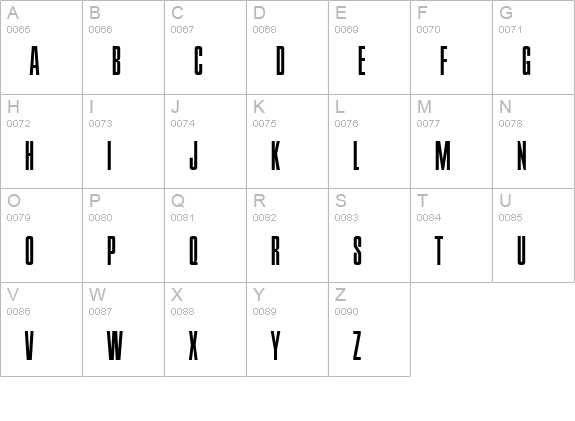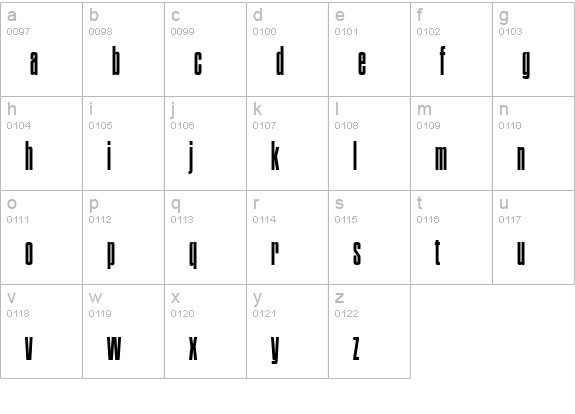
Corporate Regular Font Details
Corporate Regular is the standard, neutral variant in the Corporate typeface family \xE2\x80\x94 well suited to general body text, paragraphs, and standard typographic work.
Introducing Corporate Regular font, a versatile and professional typeface perfect for corporate communication and branding. This font features clean lines and a modern aesthetic, making it ideal for a wide range of design projects. Whether you're creating business documents, marketing materials, or website content, Corporate Regular font will help you achieve a sleek and polished look. And the best part? Corporate Regular font is available for free download at FontsMarket.com. This means you can easily access this high-quality font without any cost, making it a valuable addition to your font library. Don't miss out on the opportunity to enhance your designs with the sleek and professional style of Corporate Regular font. Download it today and elevate your projects with this top-notch typeface.